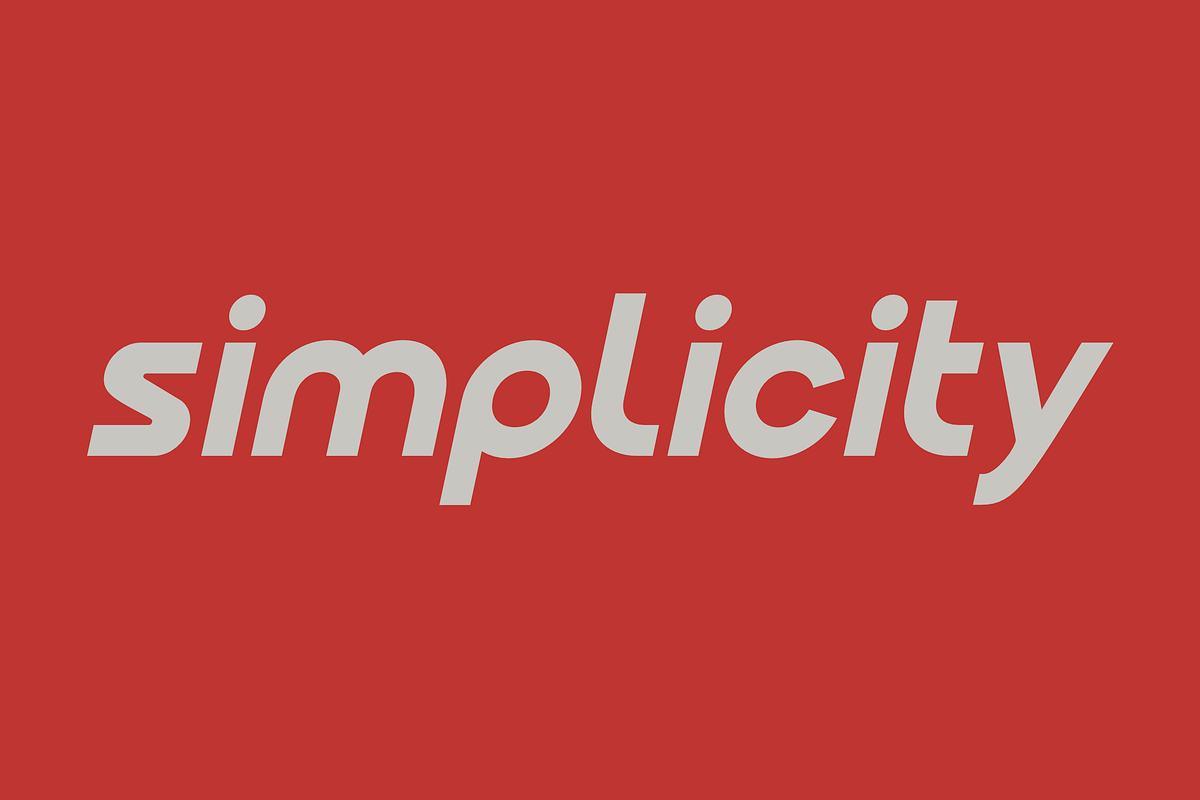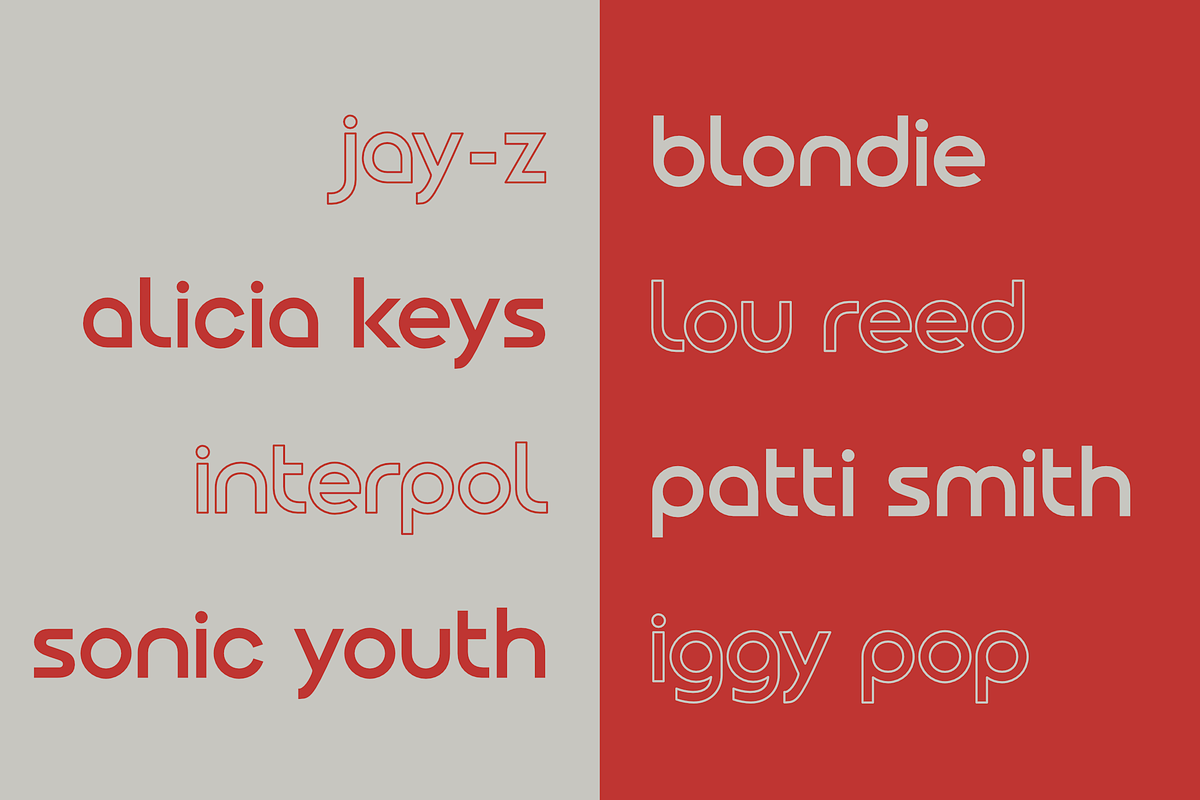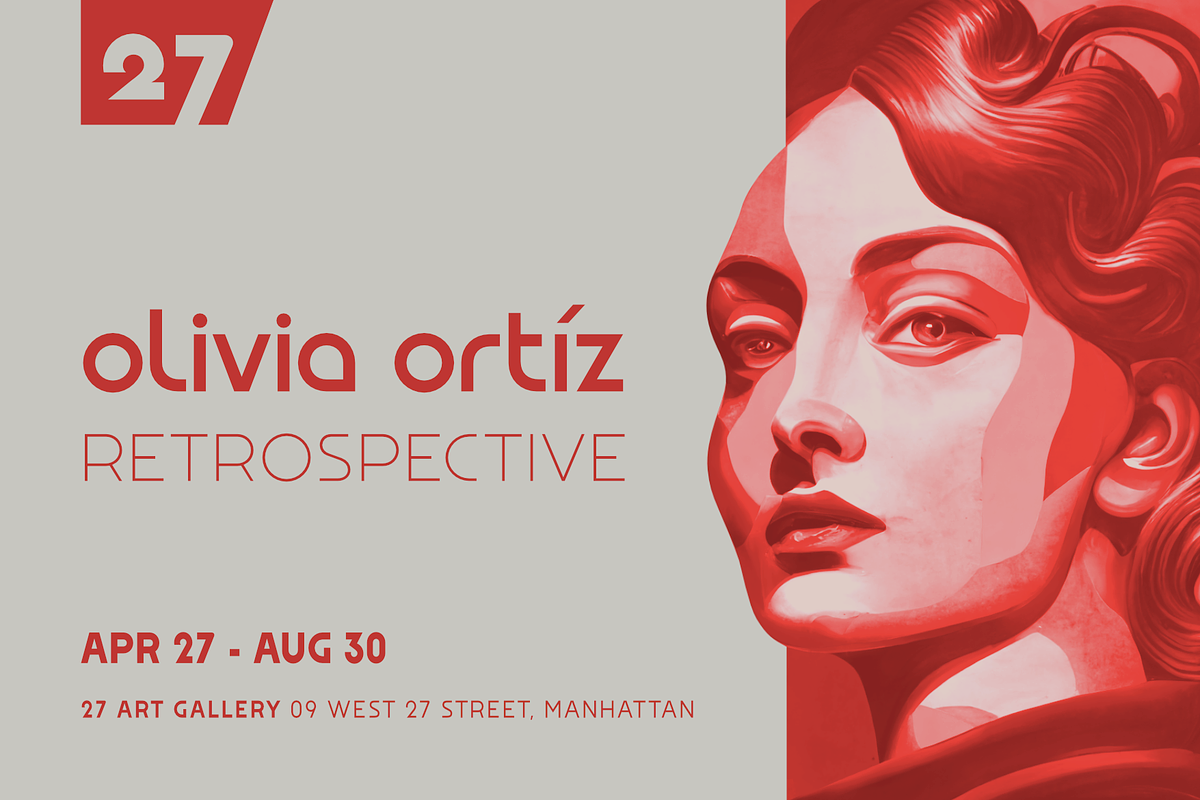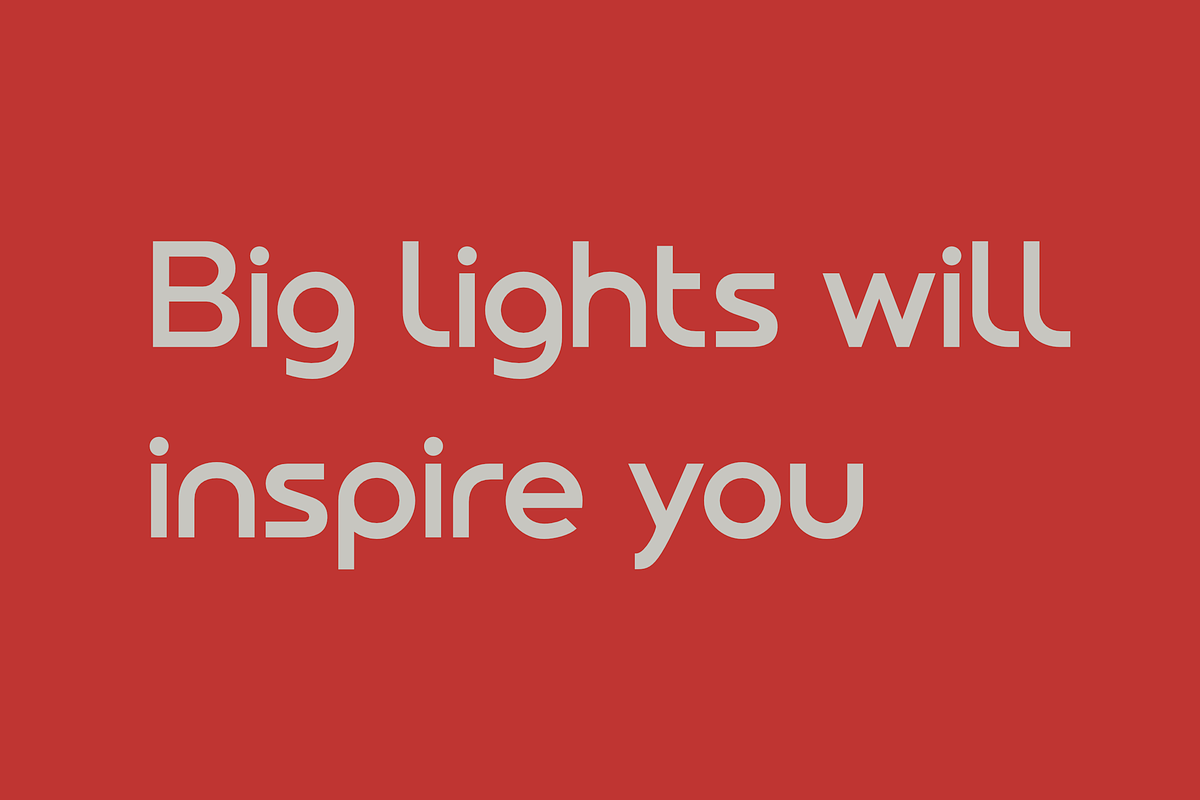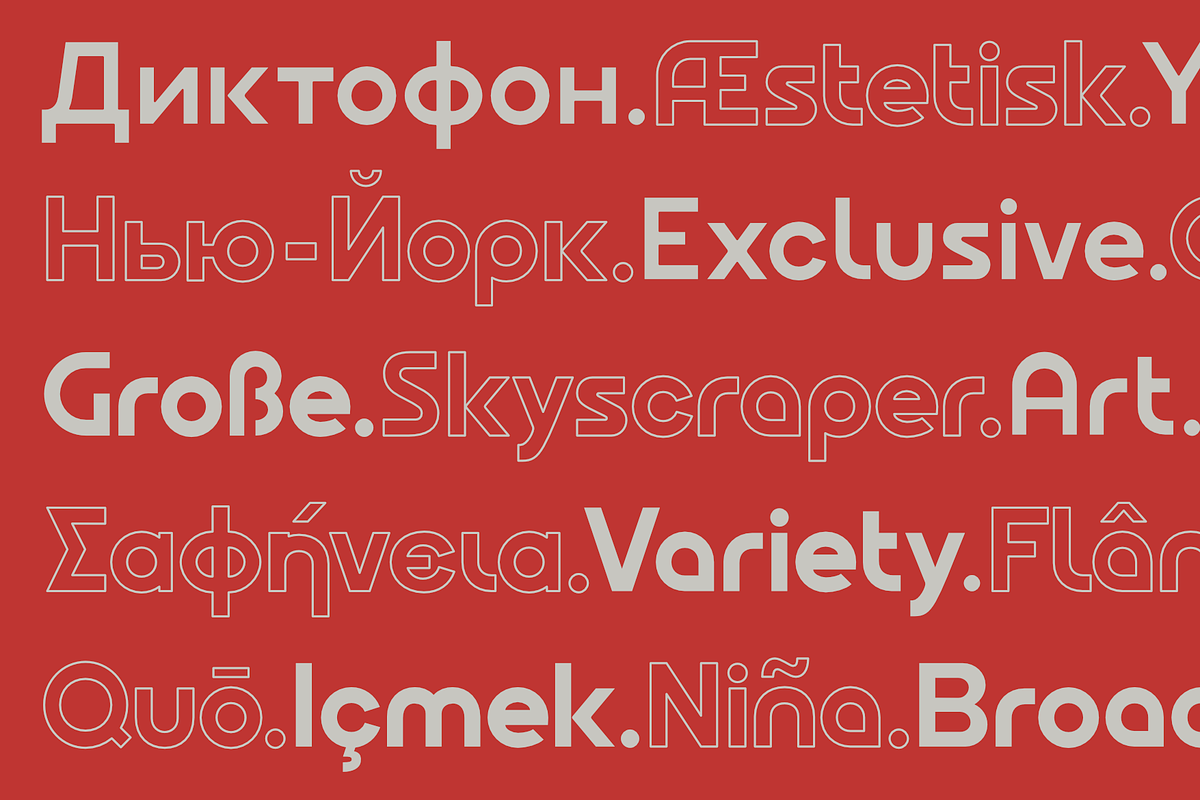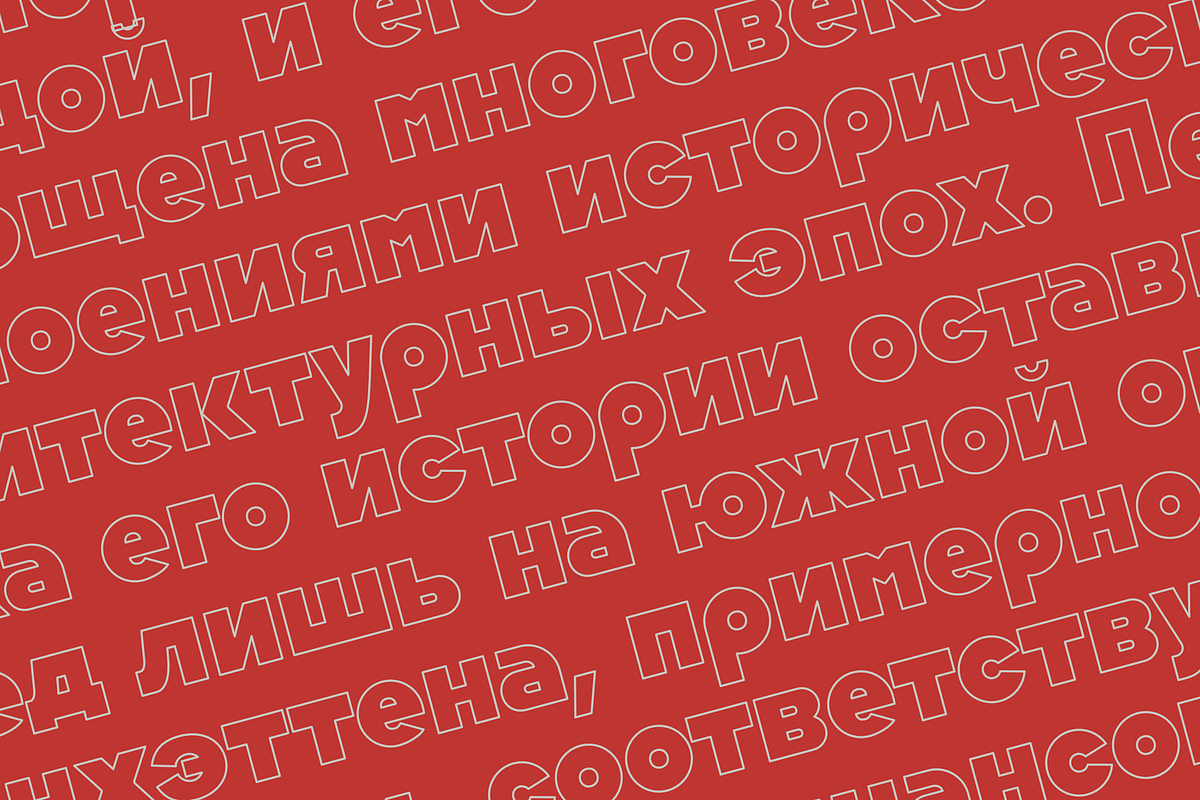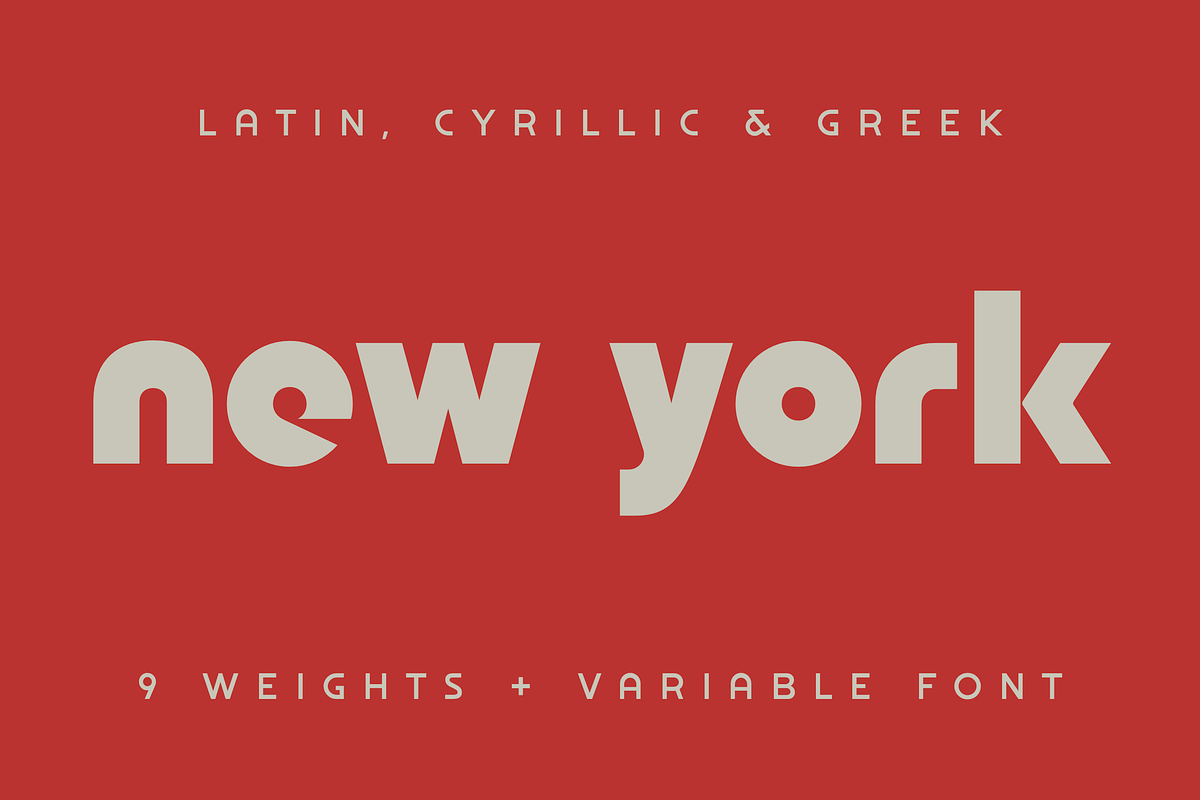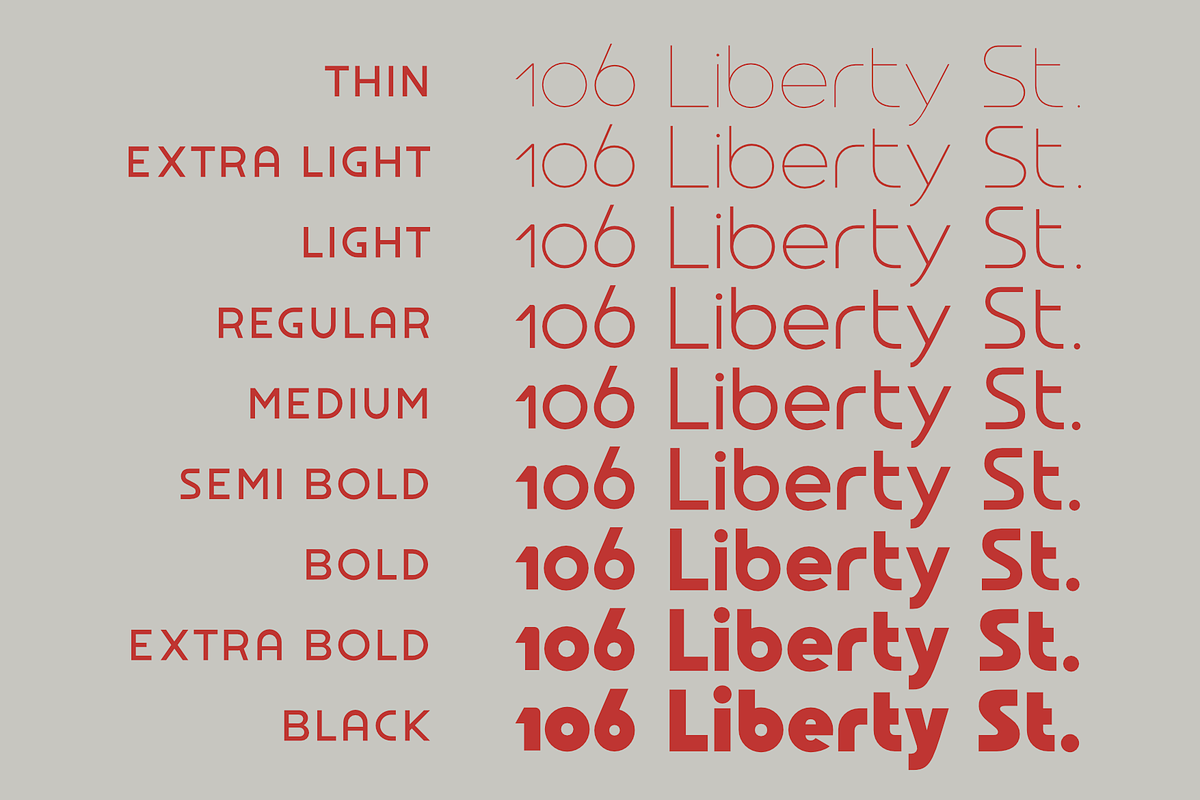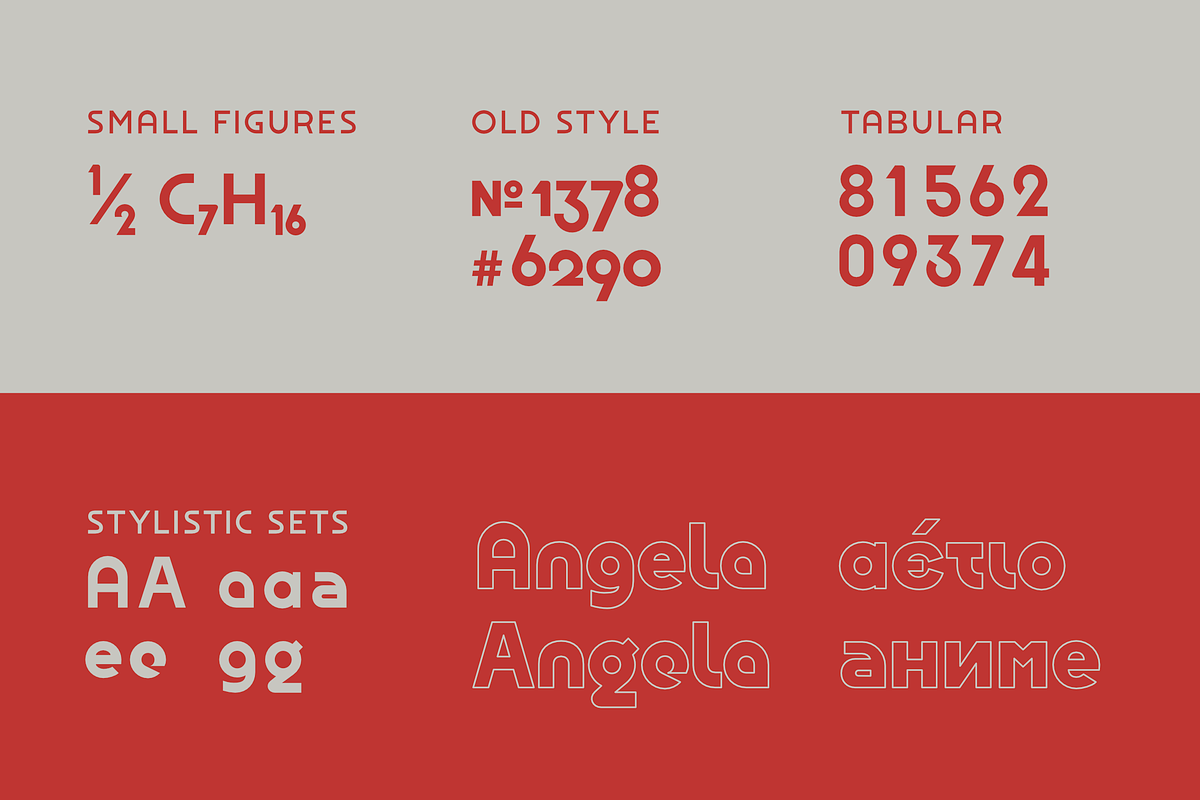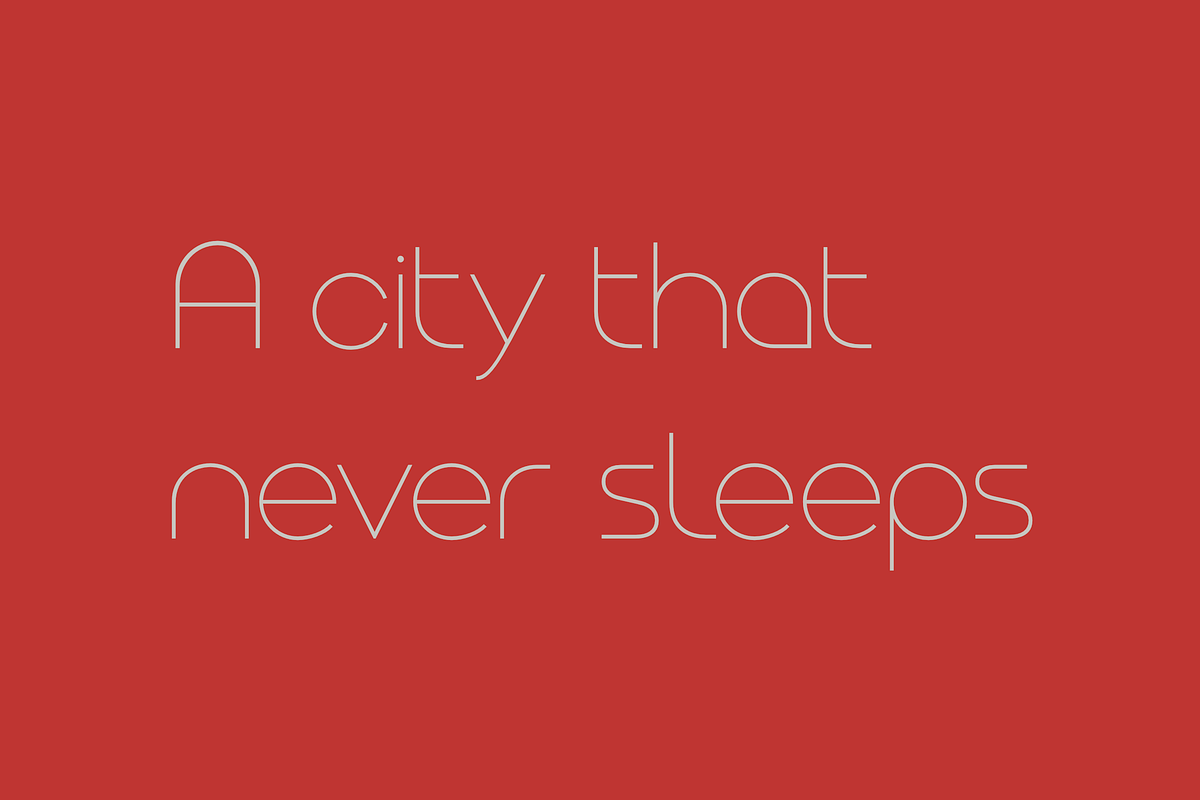
OTC New York
OTC New York is a modern geometric sans-serif font family inspired by the Bauhaus school. Its simplified forms, balanced layout, and harmonious shapes create a clean and strong aesthetic. The font comes in 18 styles, encompassing nine weights (including italics), and is available as a variable font that allows for weight and italic adjustments. OTC New York's versatility makes it suitable for a wide range of applications, including branding, logos, headlines, editorial design, packaging, web, and television.